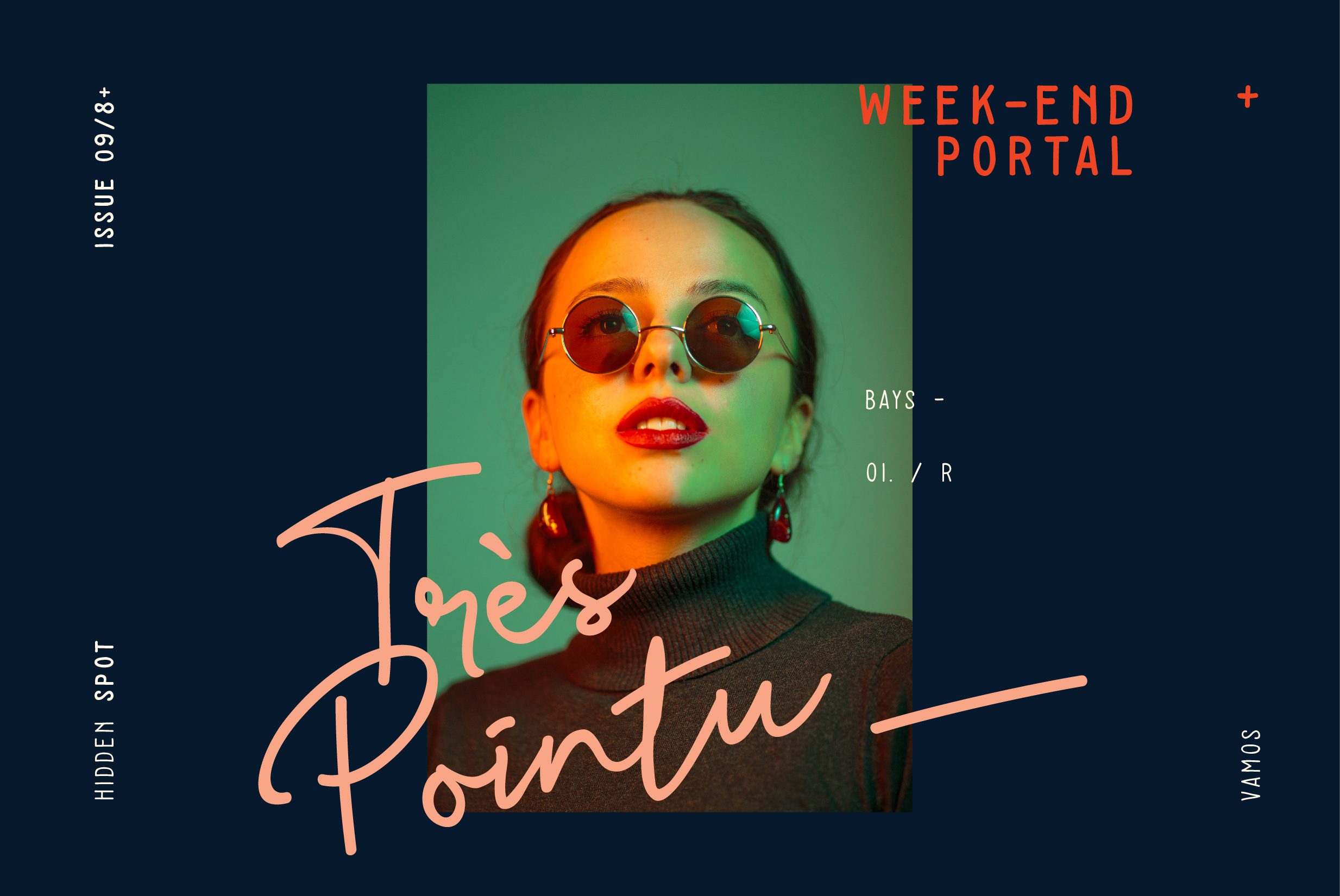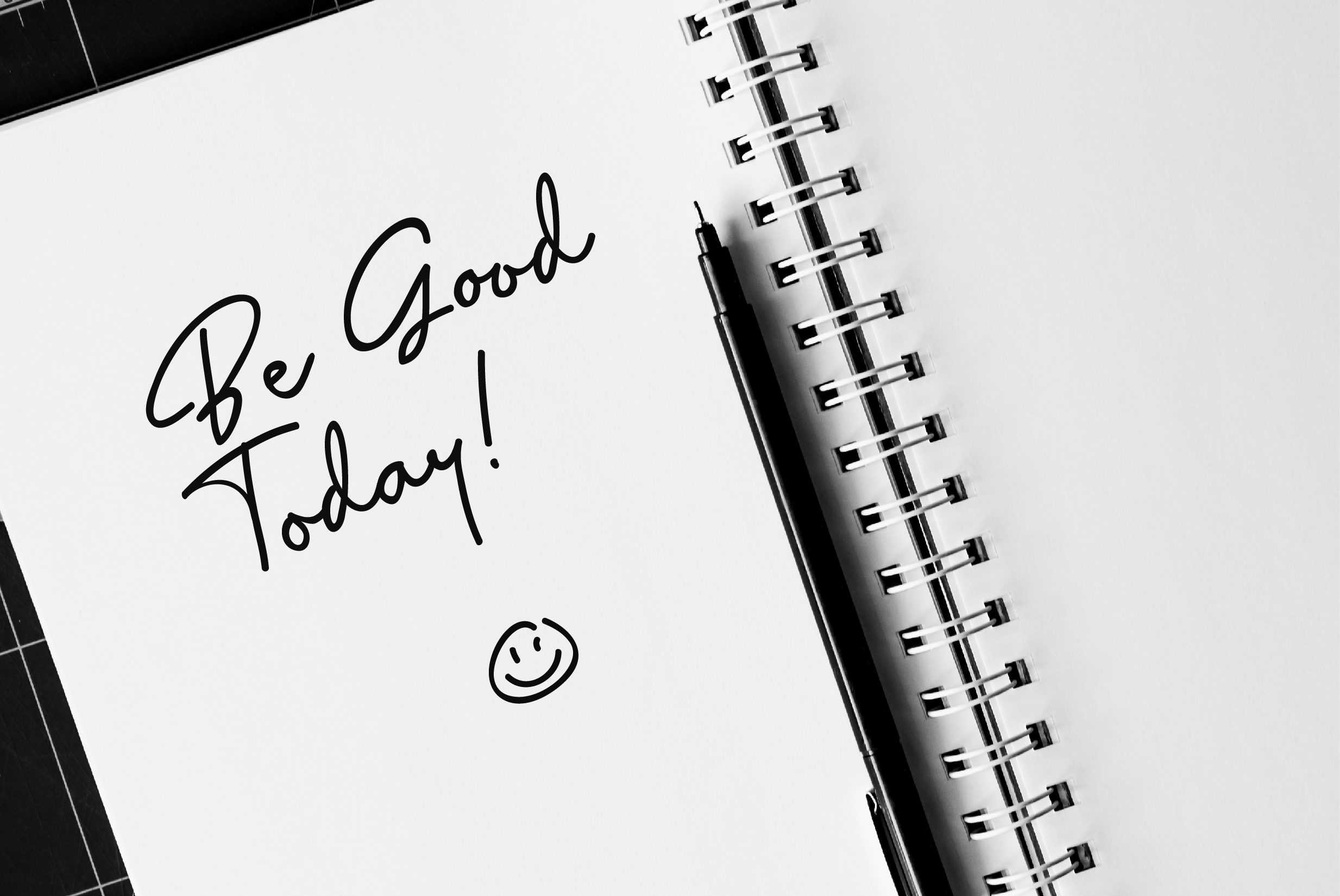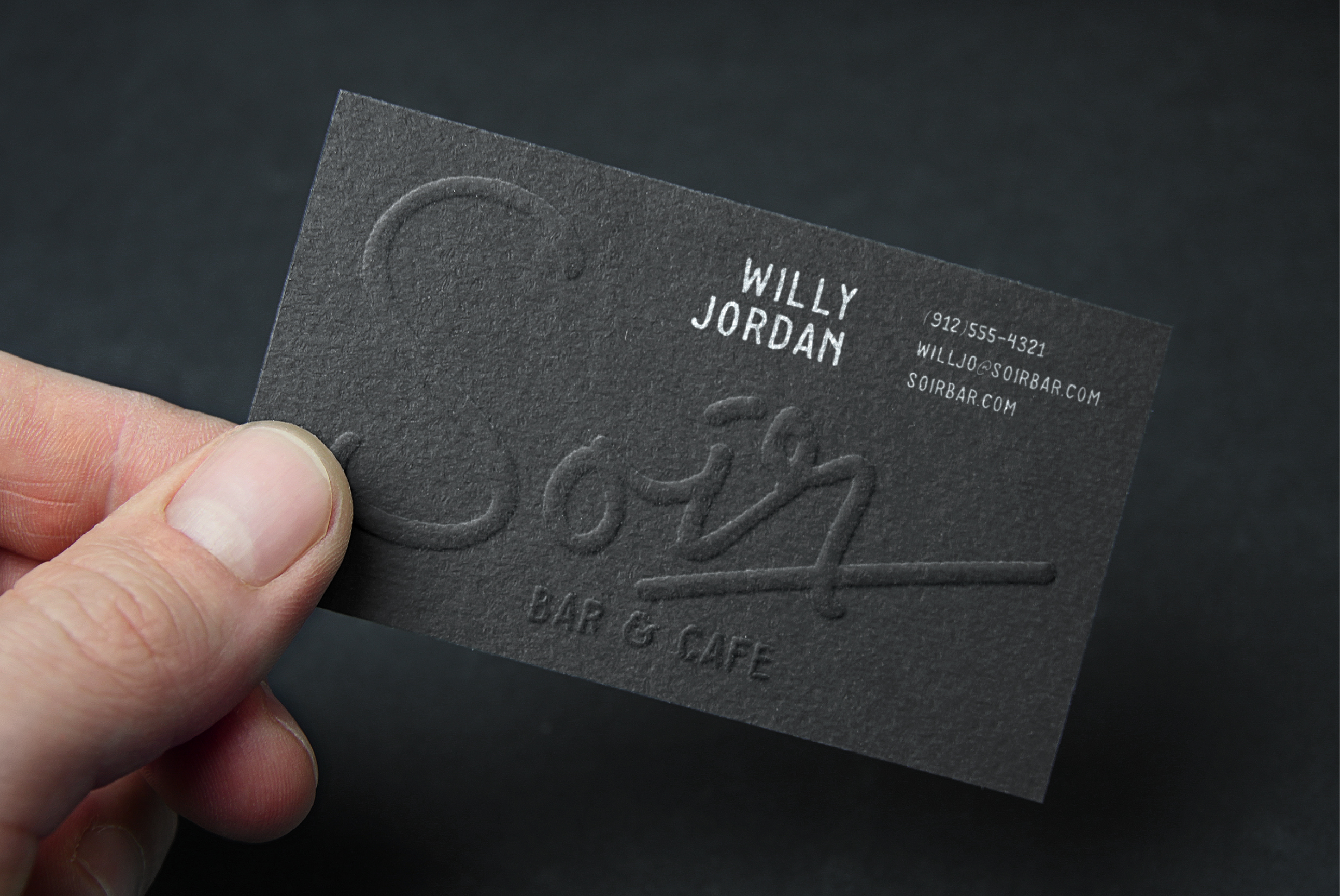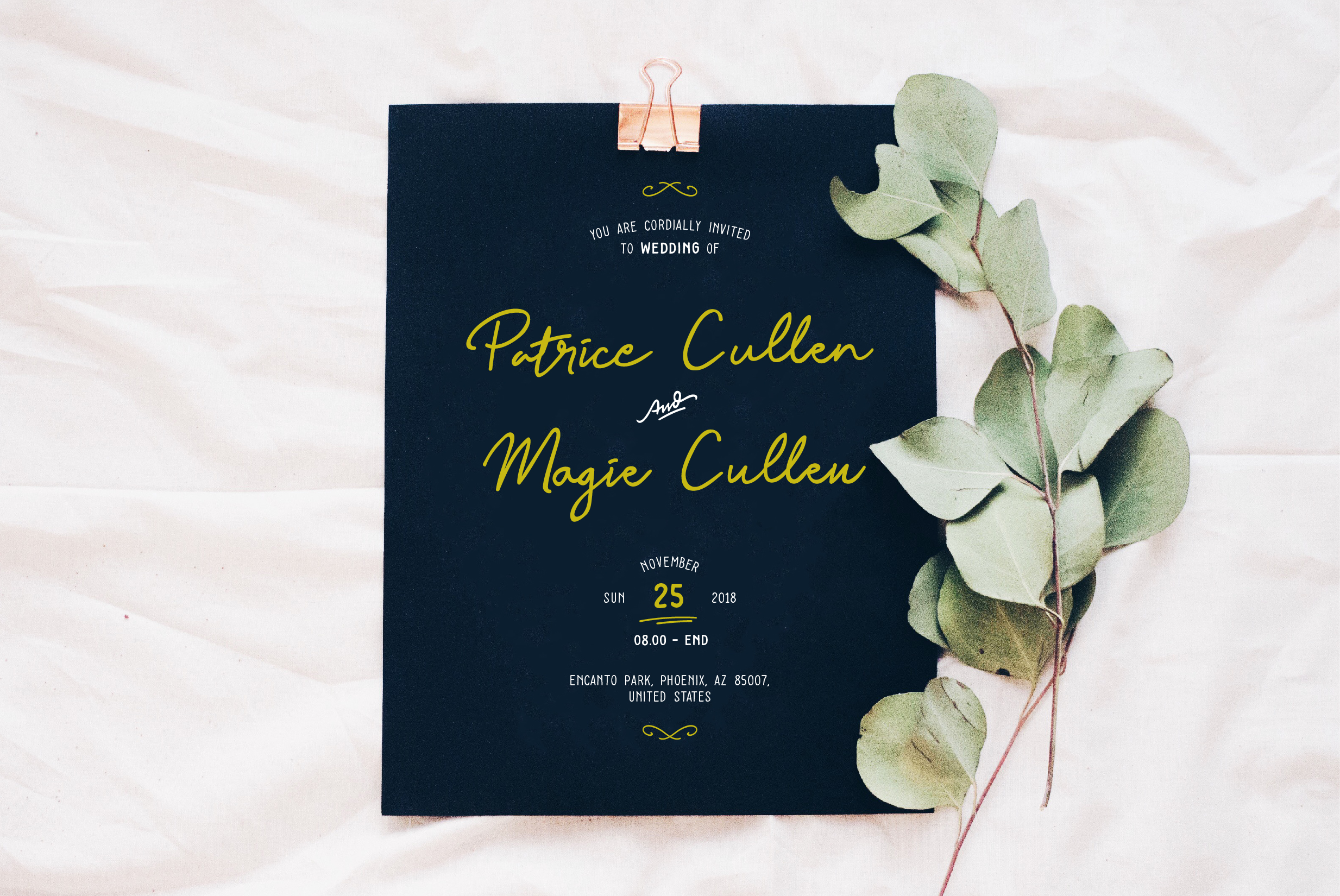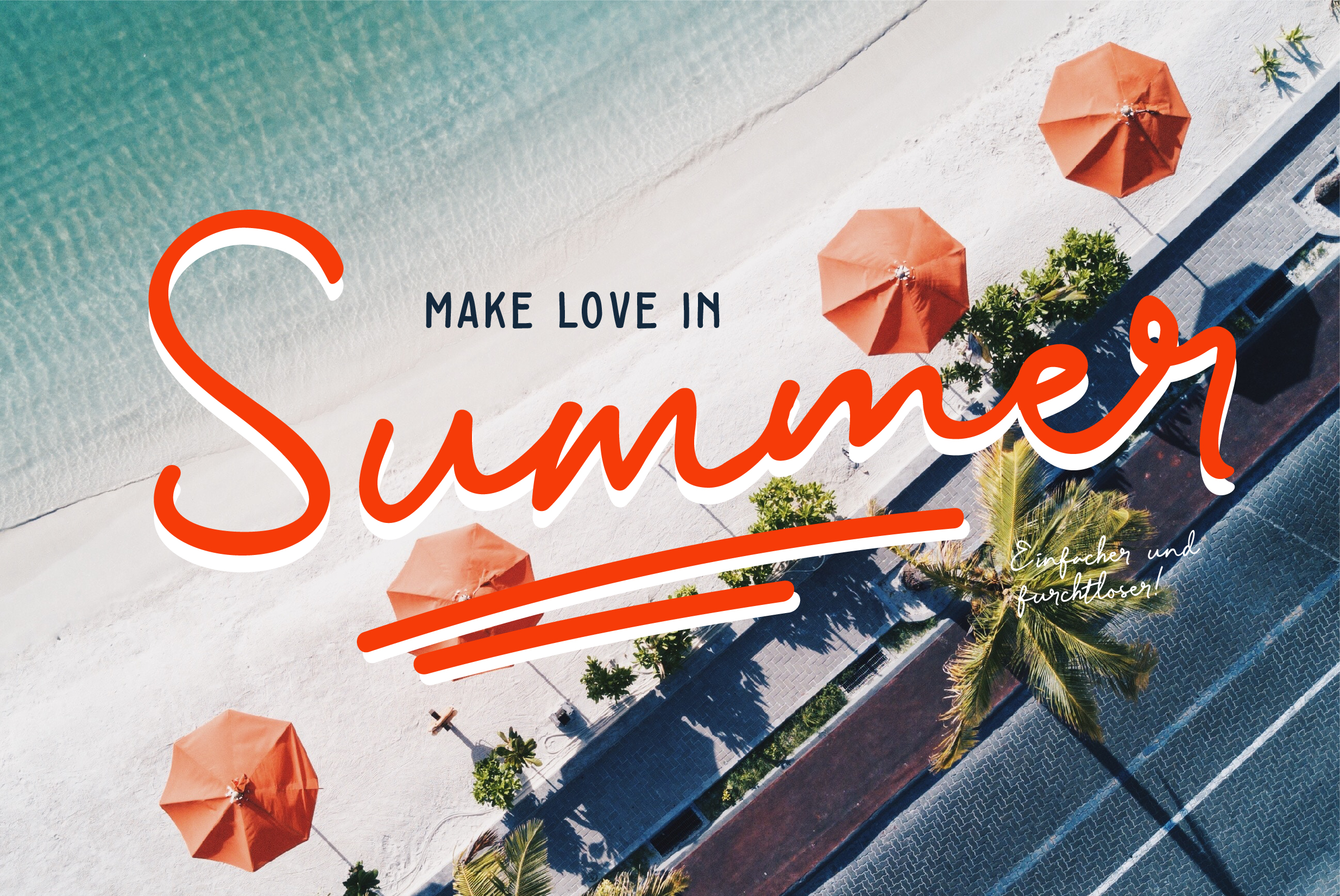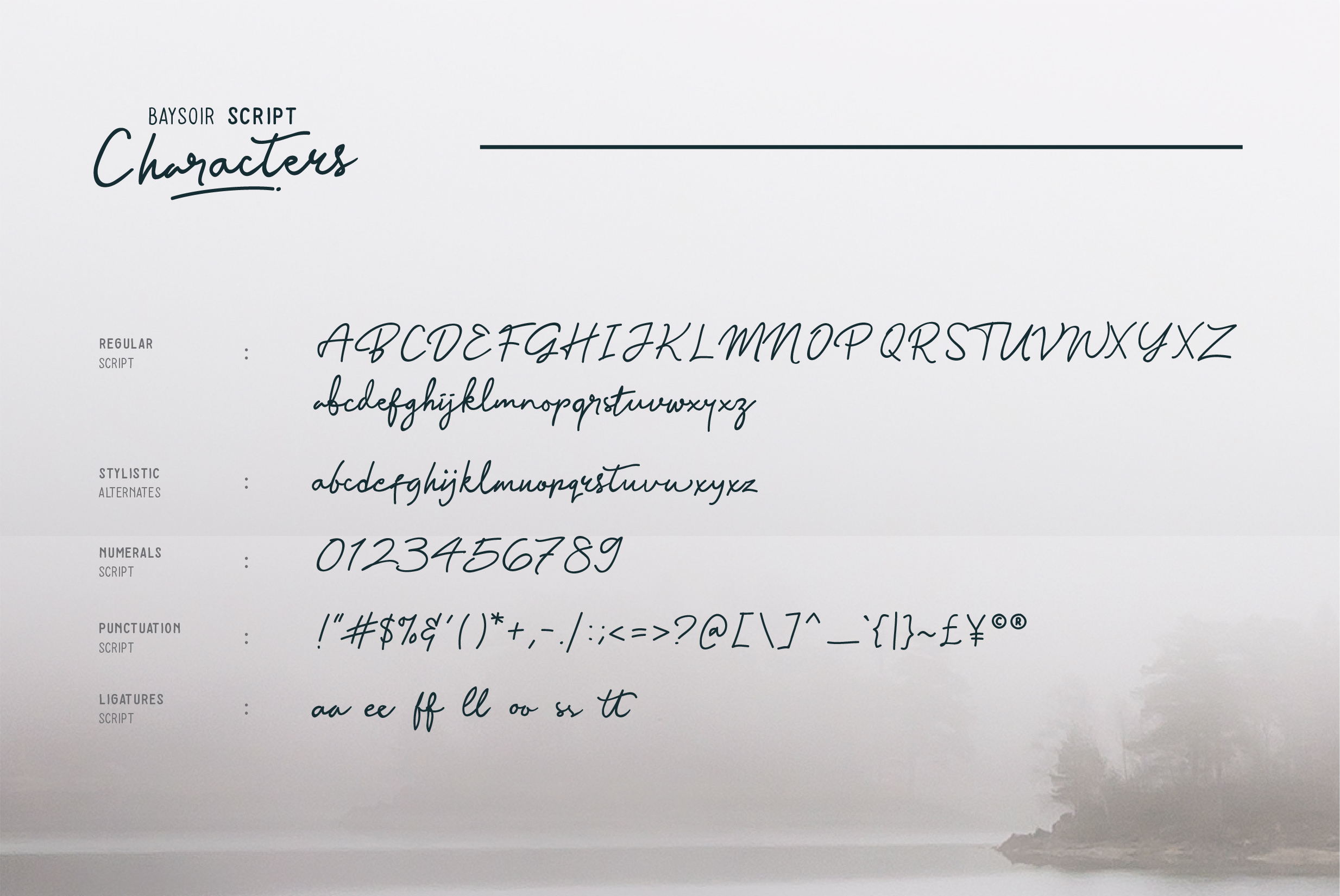
Introducing Baysoir Font: A Perfect Blend of Handwritten Signature and Modern Sans Serif
In the world of typography, fonts play a crucial role in making or breaking a design. A well-chosen font can elevate your project, making it more engaging, readable, and aesthetically pleasing. If you’re a designer or crafter looking for a unique and versatile font combination, look no further than Baysoir Font. This fantastic duo consists of a handwritten signature font and a Display Sans serif typeface, carefully crafted to work in harmony and amplify your designs.
The Baysoir Font Combination: A Match Made in Heaven
Baysoir Font is not just a single font, but a thoughtfully paired combination of two distinct typefaces: a handwritten signature font and a Display Sans serif font. The handwritten signature font boasts a natural, fresh look, reminiscent of hand-painted lettering. Its flowing strokes and subtle imperfections evoke a sense of warmth and personality, perfect for adding a touch of humanity to your designs.
On the other hand, the Display Sans serif typeface offers a clean, modern contrast to the handwritten font. Its sleek lines and minimalist aesthetic make it ideal for headlines, titles, and other display purposes. When paired with the handwritten signature font, the result is a beautiful harmony of contrasting styles that can add depth and visual interest to any design.
Key Features of Baysoir Font
- Handwritten Signature Font: Developed with a natural and fresh look, this font is perfect for adding a personal touch to your designs. Its hand-painted feel makes it ideal for use in invitations, greeting cards, and other creative projects.
- Display Sans Serif Typeface: This modern font is designed for display purposes, making it perfect for headlines, titles, and other attention-grabbing elements. Its clean lines and minimalist aesthetic ensure that your message is conveyed clearly and effectively.
- Perfect Combination: The Baysoir Font combination is designed to work seamlessly together, providing a unique and versatile typography solution for designers and crafters.
Benefits of Using Baysoir Font
So, why choose Baysoir Font for your next project? Here are just a few benefits of using this fantastic font combination:
- Unique and Eye-Catching: The Baysoir Font combination is sure to grab attention and make your designs stand out from the crowd.
- Versatile: With two distinct fonts to choose from, you can use Baysoir Font in a wide range of projects, from invitations and greeting cards to posters and digital displays.
- Easy to Read: Despite its creative and artistic feel, Baysoir Font is surprisingly easy to read, making it perfect for use in body text as well as display purposes.
- Customizable: With its hand-painted feel and modern sans serif counterpart, Baysoir Font offers plenty of opportunities for customization and experimentation.
Tips for Using Baysoir Font Effectively
To get the most out of Baysoir Font, here are a few tips to keep in mind:
- Mix and Match: Don’t be afraid to experiment with different font combinations and pairings to find the perfect look for your project.
- Use for Contrast: Take advantage of the contrasting styles of the Baysoir Font combination to add visual interest and depth to your designs.
- Pay Attention to Hierarchy: Use the Display Sans serif typeface for headlines and titles, and the handwritten signature font for body text or supporting information.
In conclusion, Baysoir Font is a unique and versatile font combination that offers a perfect blend of handwritten signature and modern sans serif styles. With its natural, fresh look and carefully crafted design, this font duo is sure to amplify your designs and make them stand out from the crowd. Whether you’re a designer, crafter, or simply someone looking for a creative edge, Baysoir Font is an excellent choice for any project.